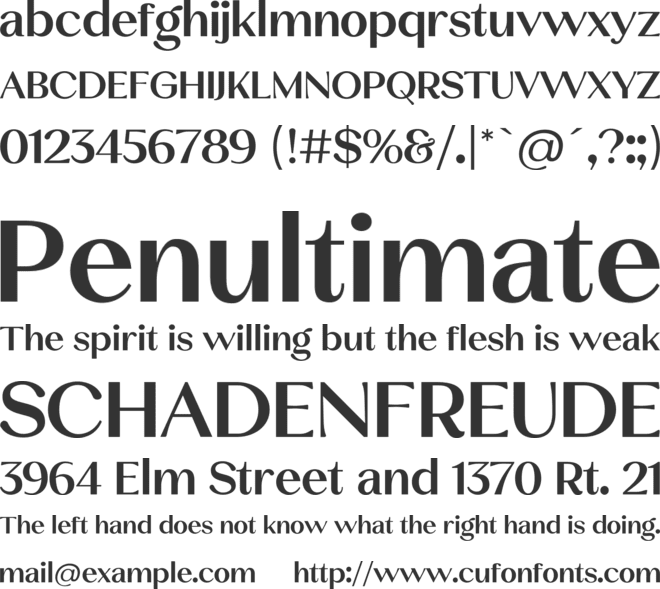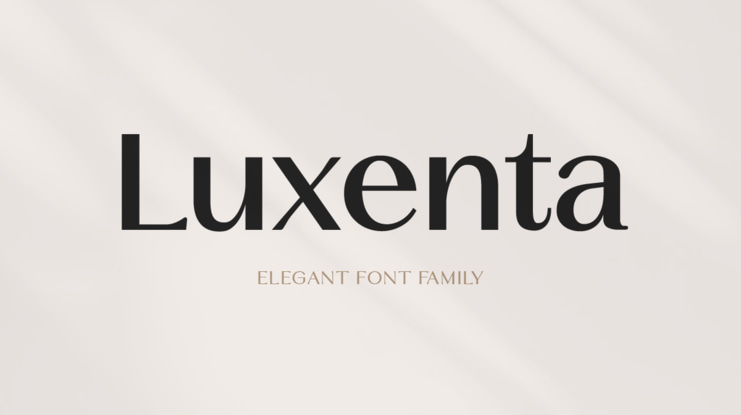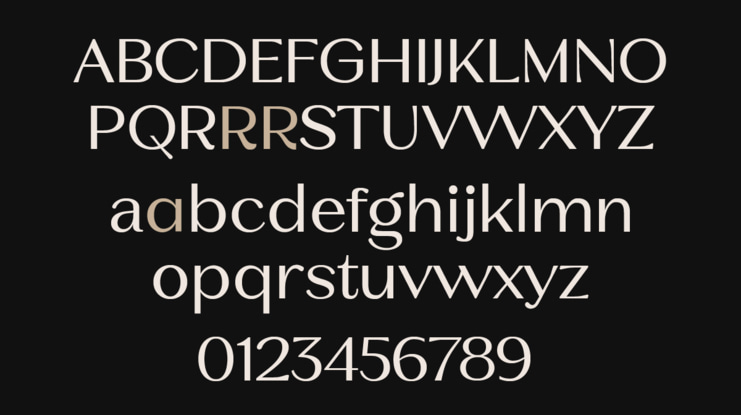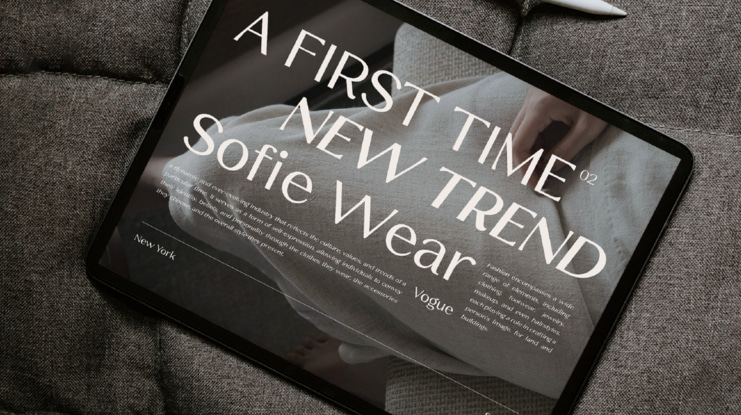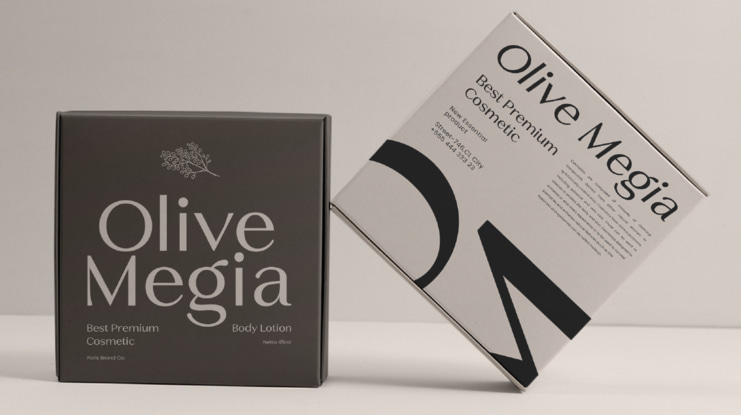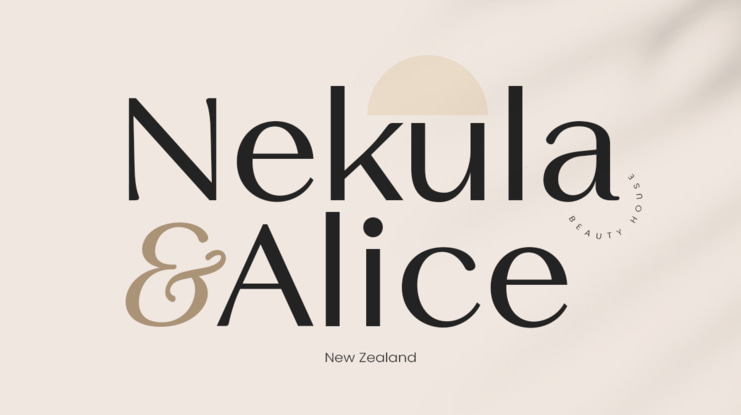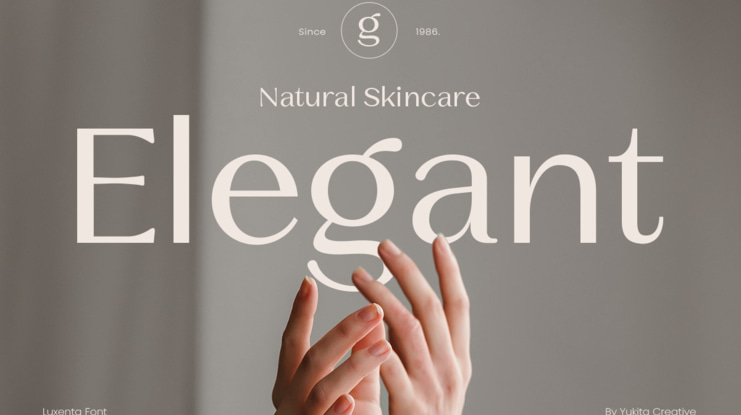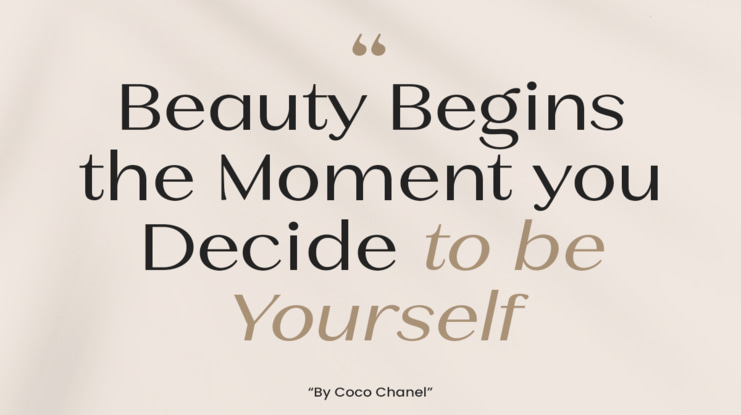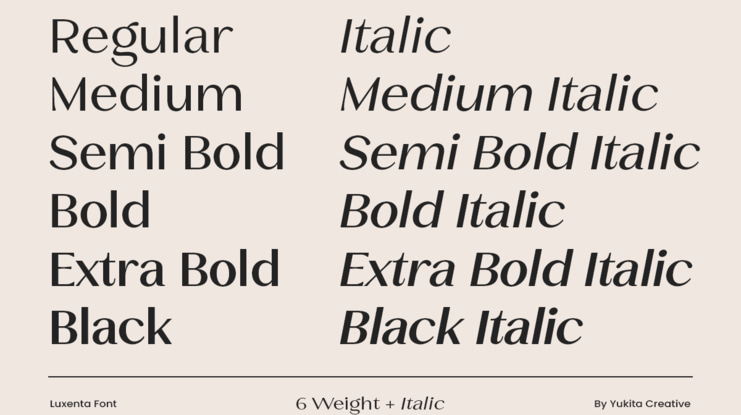
Luxenta Complete Family Font Family
Luxenta is an elegant sans serif font created to meet the design needs that emphasize aesthetics and class. With a modern and clean design, this font is the perfect choice for designers looking to add an elegant touch to their projects. It’s ideal for branding, magazines, logos, and various design projects that demand an elegant and luxurious feel.
The Luxenta font comes in 6 weights, ranging from Regular to Black, as well as 6 oblique styles, offering flexibility for any design need. This combination of weights and styles provides a wide range of options to create striking and professional designs.
Key Features: 6 Weights: Regular, Medium, SemiBold, Bold, ExtraBold, Black 6 Oblique Styles for design variety Elegant characteristics, perfect for branding, graphic design, and projects requiring a modern aesthetic Compatible for both print and digital projects, including logos, posters, and websites Luxenta is the best solution for designers seeking a sans serif font with a luxurious, modern, and elegant touch.